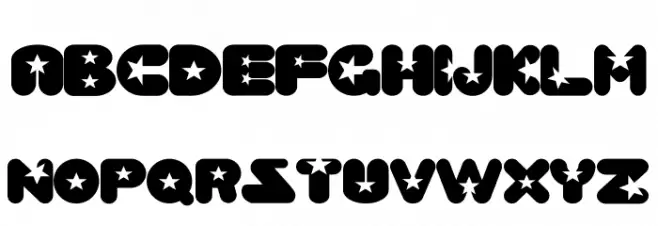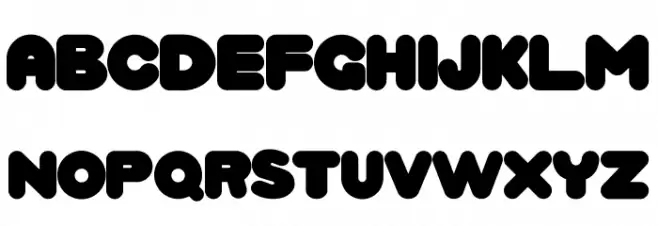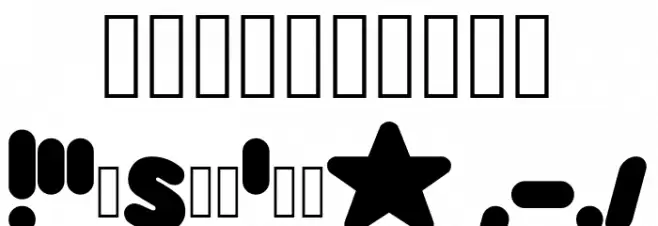
Crystal Universe Regular Font
CRYSTAL UNIVERSE FONT
Crystal Universe is a font that replicates the font used for the logo of the animated television show Steven Universe (tm).